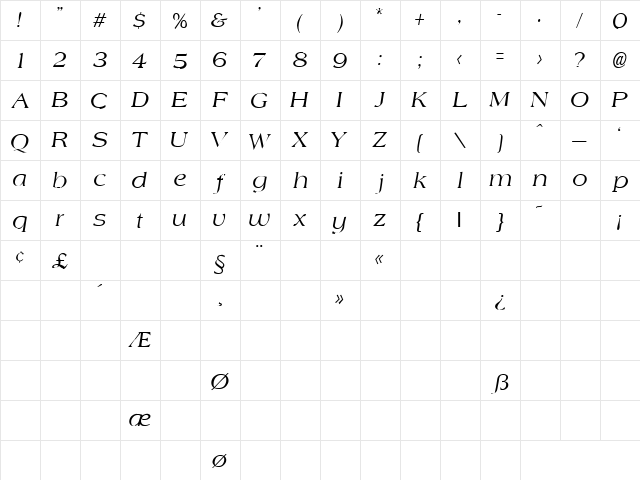
One Way Out 2 Regular
Design Context for One Way Out 2 Typeface
One Way Out 2 is a composed and adaptable typeface that performs quietly and consistently across a wide range of design contexts.